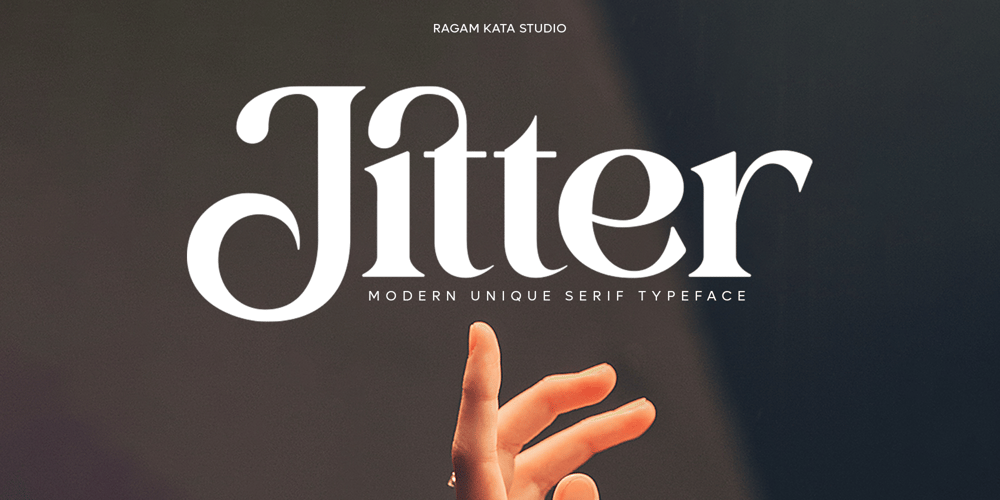
Jitter Font Family was designed by Yogiswhara Dio Prakoso Riadi and published by RagamKata. Jitter contains 1 styles and family package options. Jitter is a Beautiful modern serif typeface Unique alternate and ligature, multilingual support . This typeface is perfect for an Display typeface, elegant & luxury logo, Magazine, fashion brand , cosmetic brand, fashion promotion, modern advertising design, invitation card, art quote, home decoration , book/cover titles, special events, and much more.Jitter Features:· Uppercase & Lowercase· Alternates & Ligatures· Numerals & Punctuation· Accented characters· Multilingual Support· Unicode PUA EncodedWhile using this product, if you encounter any problem or spot something we may have missed, please don’t hesitate to drop us a message. We’d love to hear your feedbacks in order to further fine-tune our products.